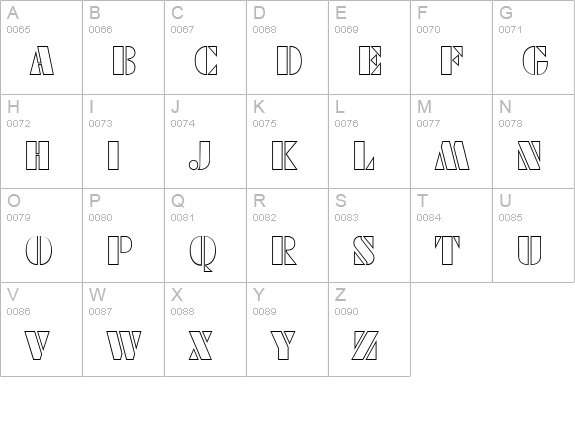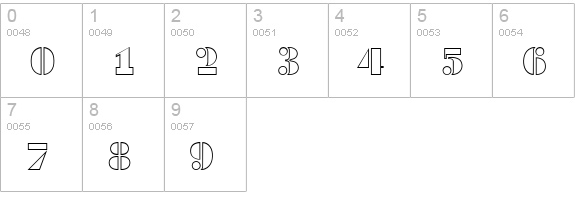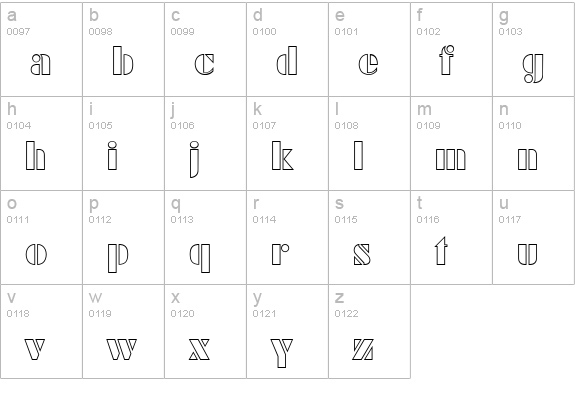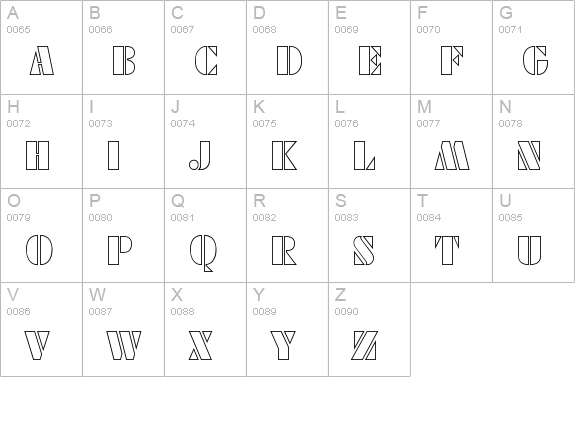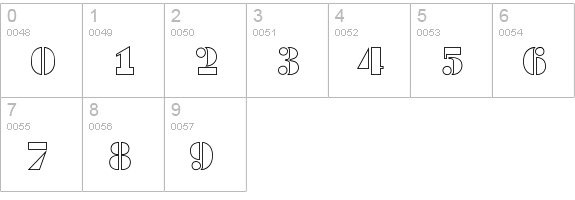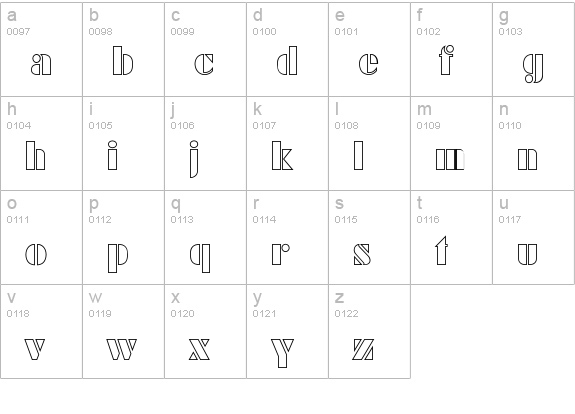
DekoBlackOpenSerial-Regular is the standard, neutral variant in the DekoBlackOpenSerial typeface family \xE2\x80\x94 well suited to general body text, paragraphs, and standard typographic work.
DekoBlackOpenSerial-Regular is a bold and eye-catching font that exudes a sense of modern sophistication. With its clean lines and geometric shapes, this font is perfect for making a statement in any design project. Its sleek and contemporary style makes it ideal for headlines, logos, posters, and more. The best part? DekoBlackOpenSerial-Regular is completely free to download at FontsMarket.com. This means you can add this stylish font to your collection without any cost. Whether you're a designer looking to enhance your projects or a creative individual in need of a standout typeface, DekoBlackOpenSerial-Regular is the perfect choice. Don't miss out on this fantastic opportunity to elevate your designs with this versatile and striking font.